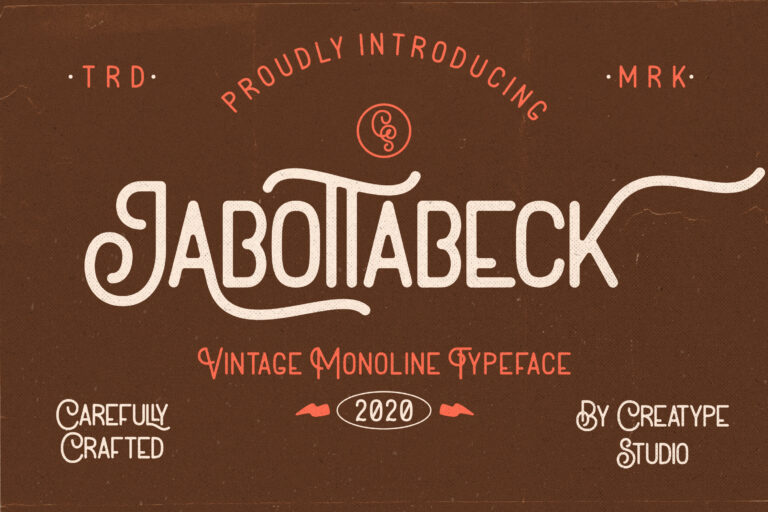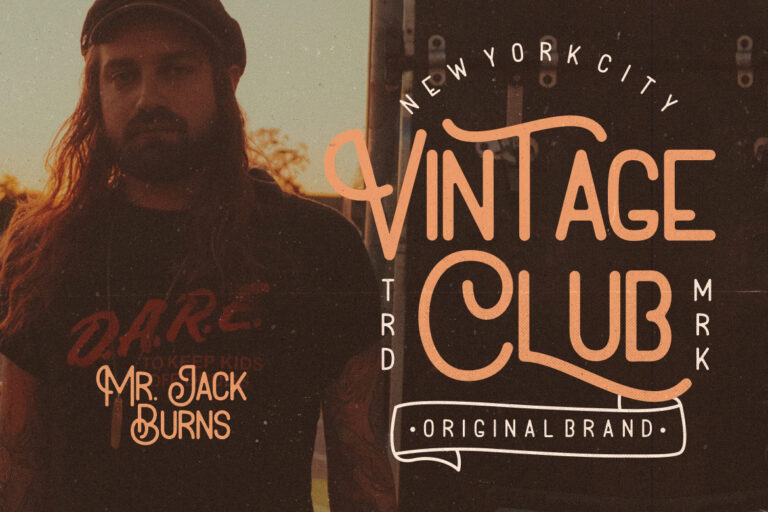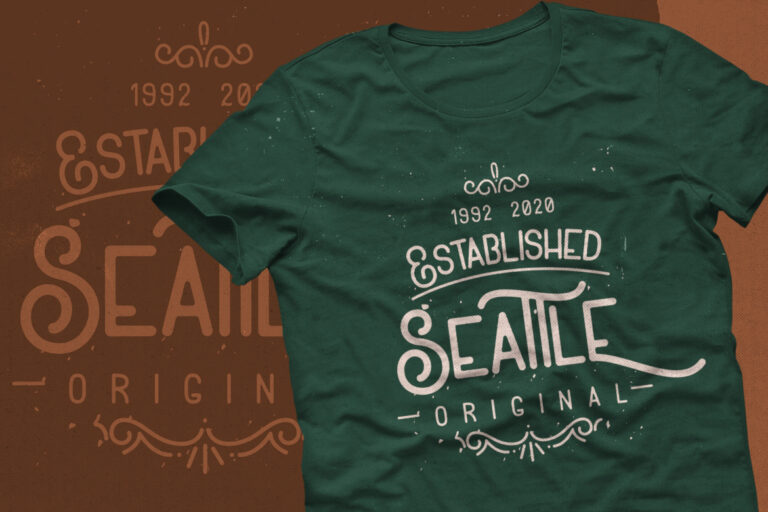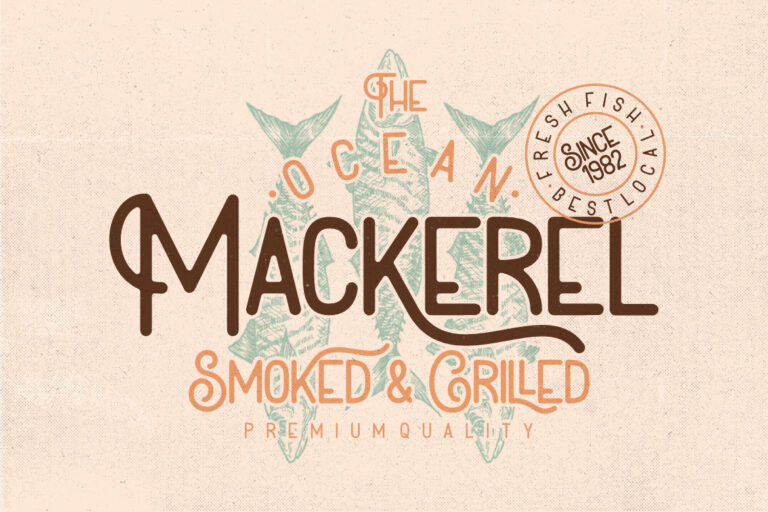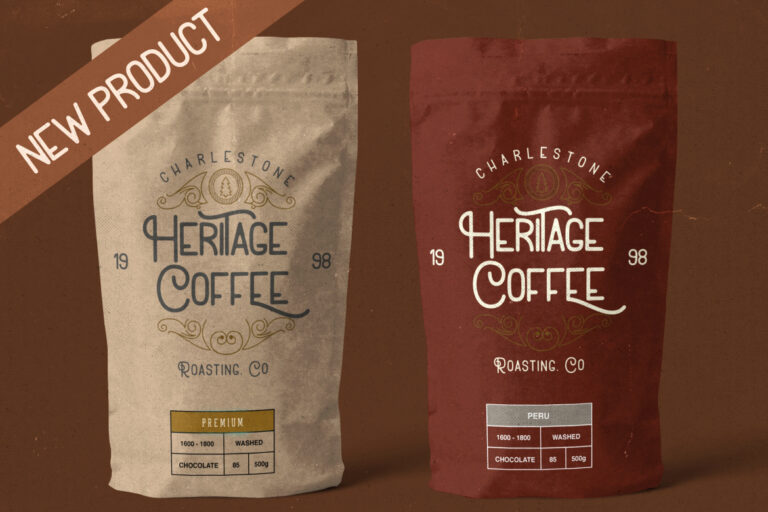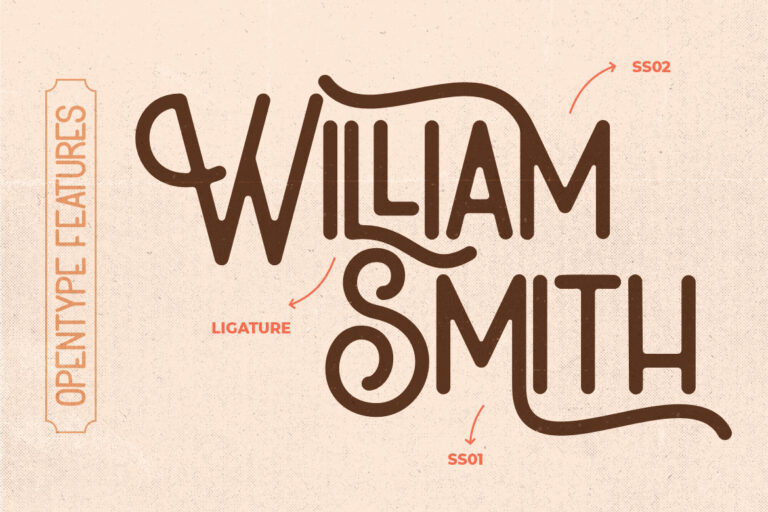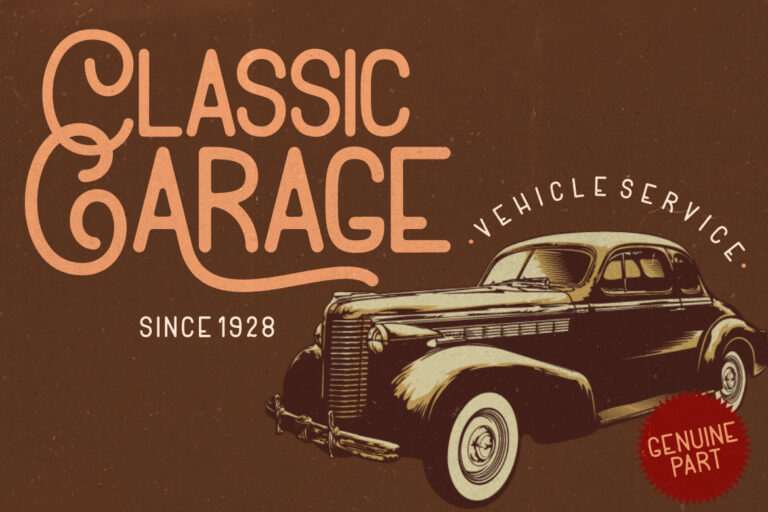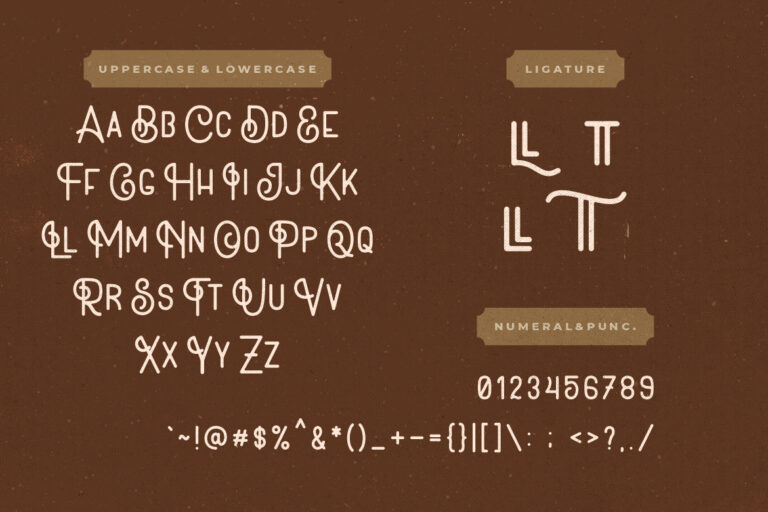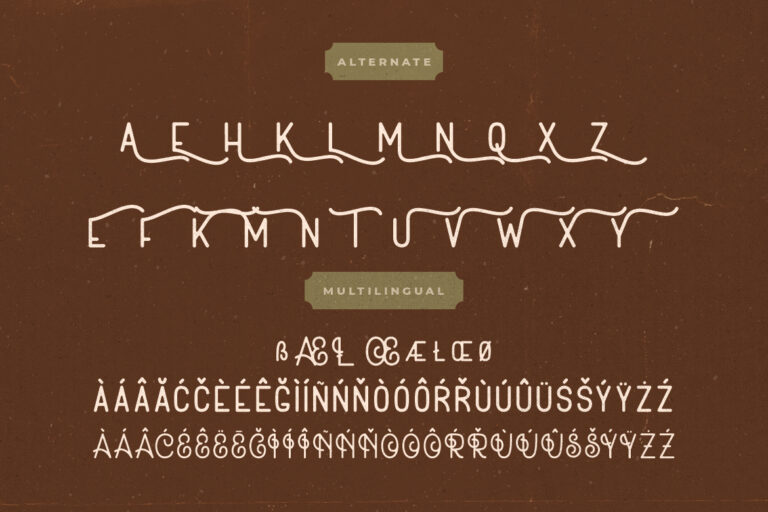
Jabottabeck Vintage Monoline
Jabottabeck a monoline vintage font with various swashes and perfect for your latest project.
Jabottabeck would perfect for photography, watermark, social media posts, advertisements, logos & branding, invitation, product designs, label, stationery, wedding designs, product packaging, special events or anything that need handwriting taste.